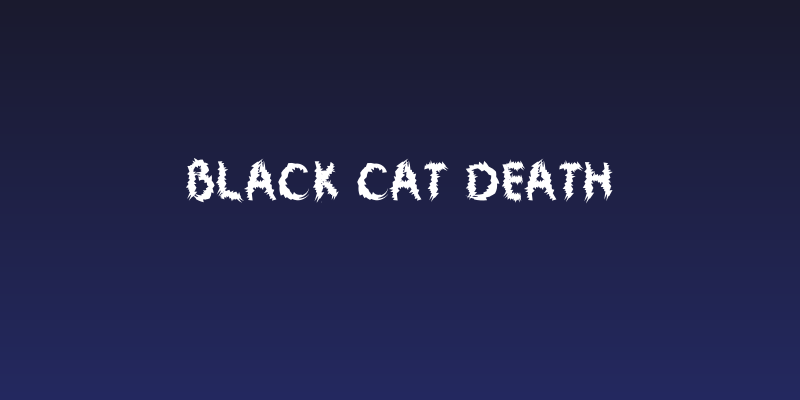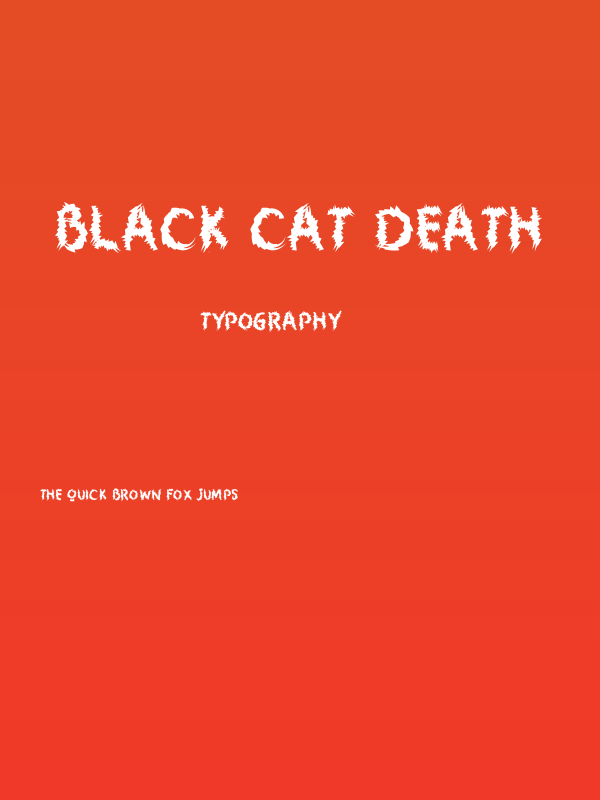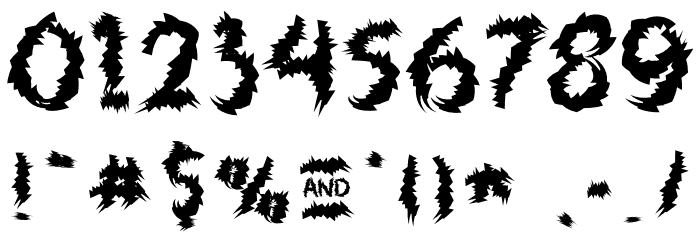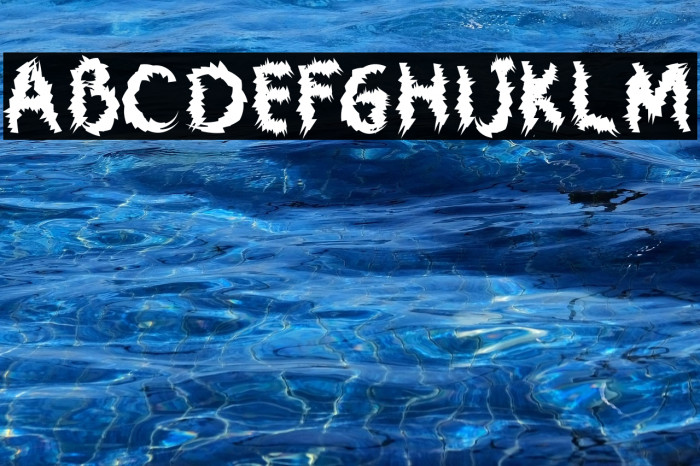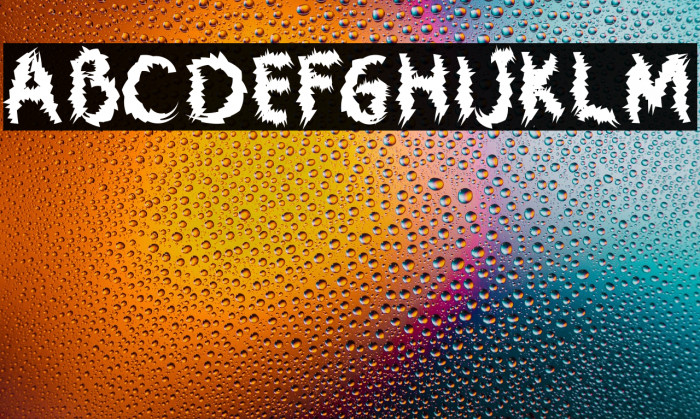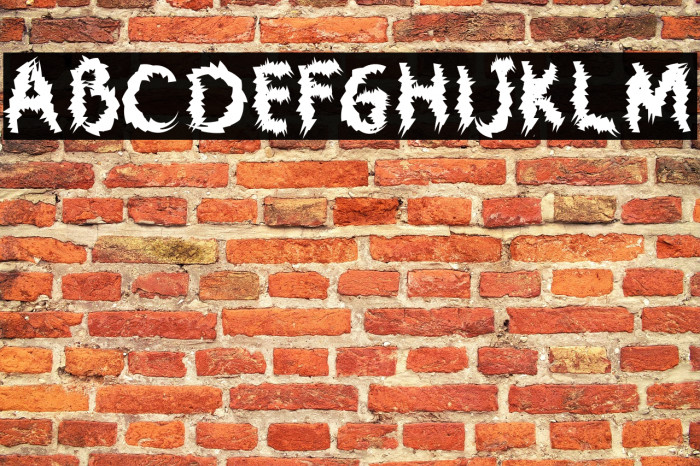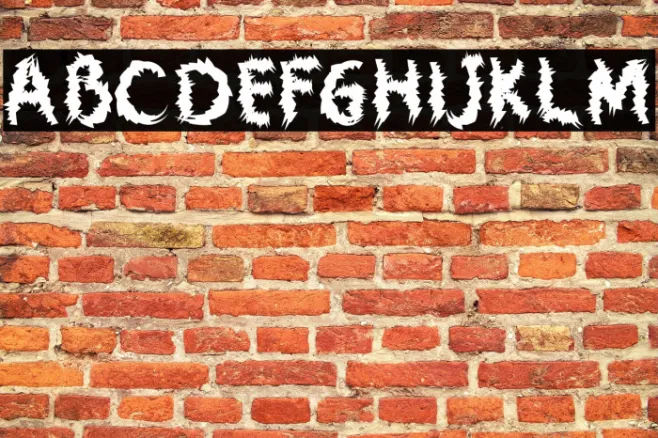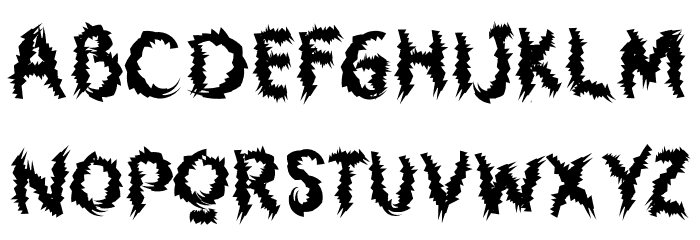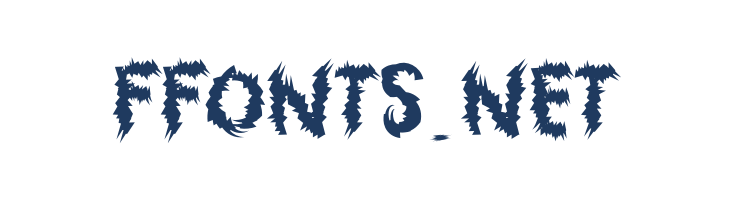
Black Cat Death Font
Black Cat Death Description
This font features a bold and jagged design, reminiscent of torn paper or claw marks, giving it a distinctly edgy and aggressive appearance. The characters are irregular and dynamic, with sharp angles and uneven edges that create a sense of movement and chaos. This style is particularly striking and attention-grabbing, making it ideal for projects that require a dramatic and intense visual impact. The font's unique aesthetic is well-suited for themes related to horror, Halloween, or anything that demands a bold statement. Its unconventional form and high contrast between the thick strokes and the negative space enhance its visibility and make it stand out in any design.
| Proposed Projects | Perfect for horror-themed posters, Halloween invitations, edgy branding, and dramatic headlines. |